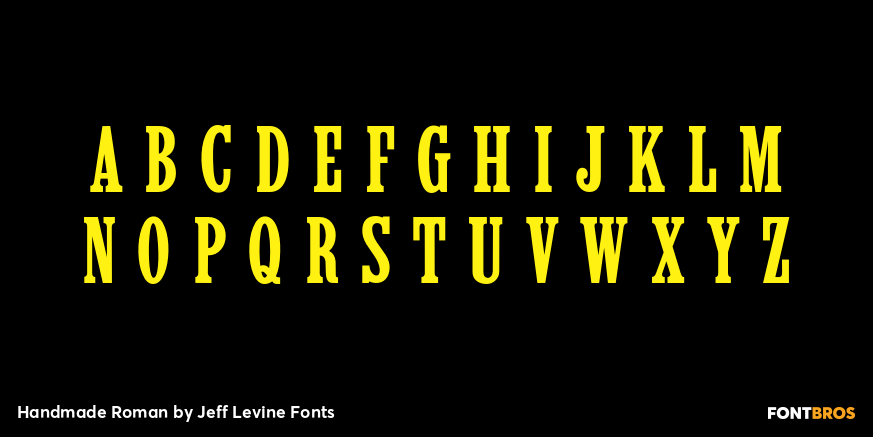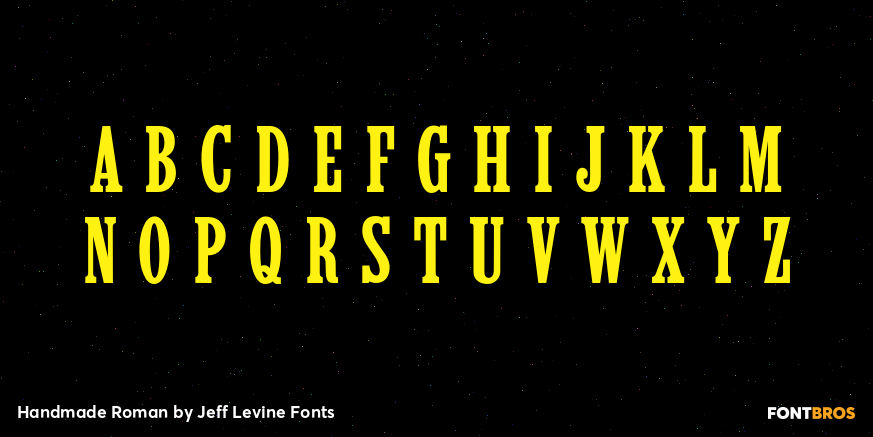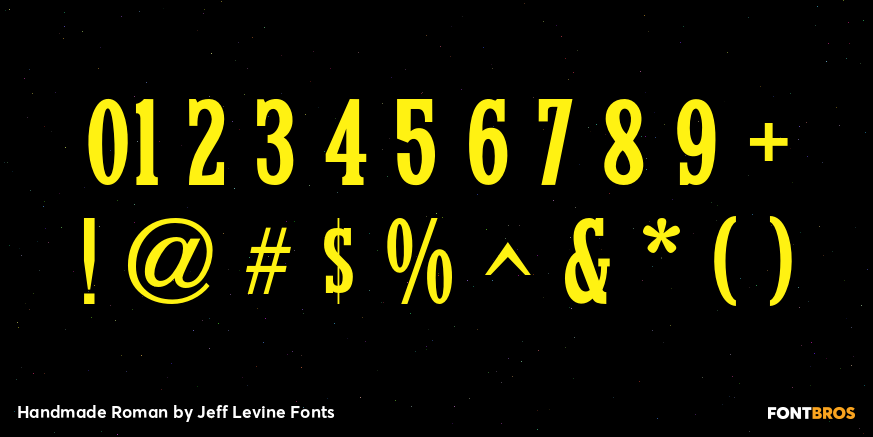
Handmade Roman
Handmade Roman JNL is a simple and clean serif design. Perfect for headlines or titles, this condensed serif font gets attention without being overly formal.